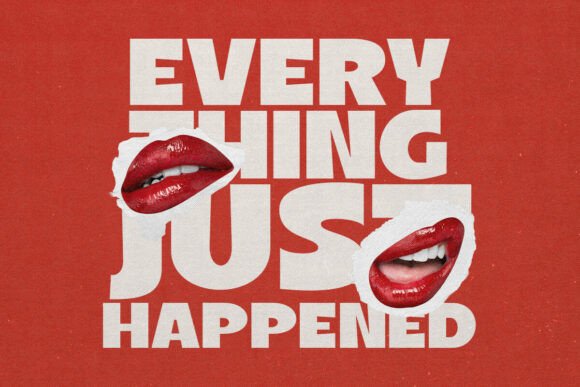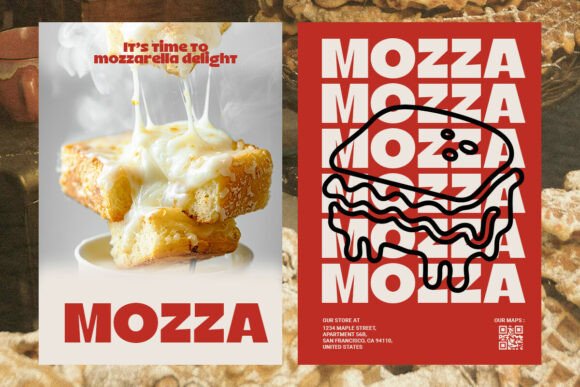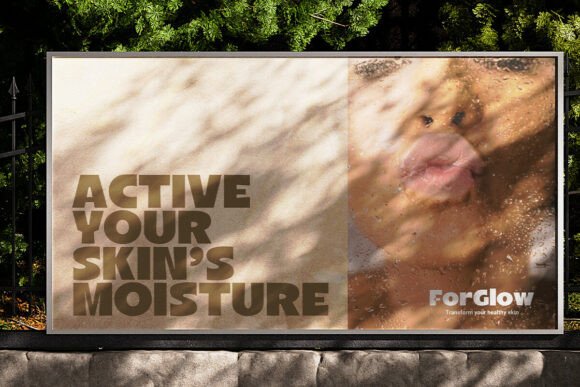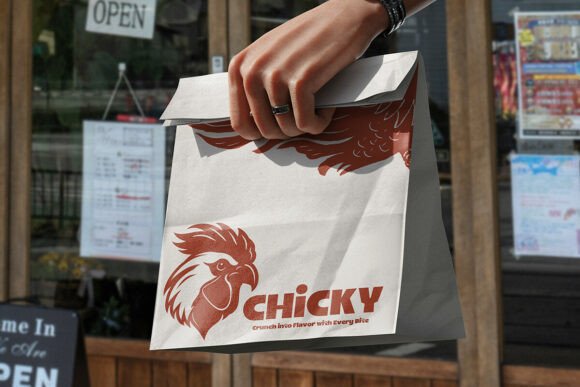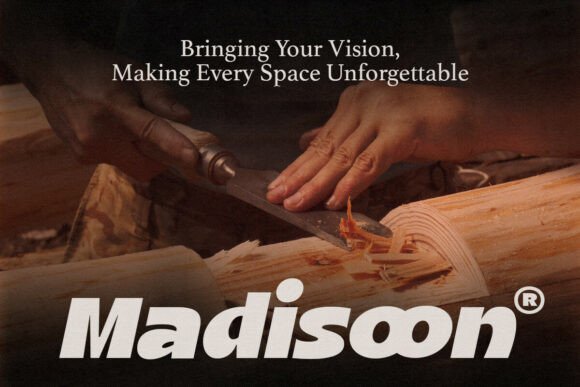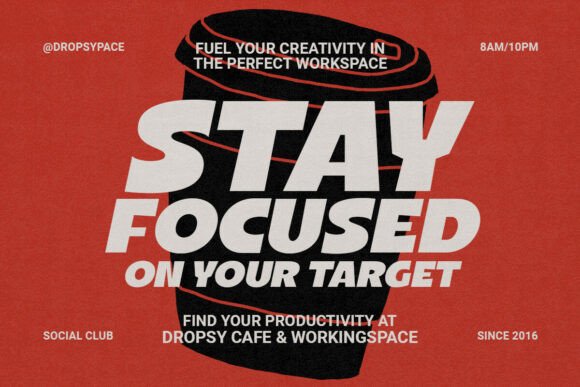
Introduction to Pramat Font
Have you ever been working on a creative project, pouring your heart and soul into it, only to be stumped by the perfect font? The one that will elevate your design from ordinary to extraordinary? For designers, finding that perfect font can be the difference between a mediocre design and a masterpiece.
Enter the Pramat Font, a modern bold sans with a stylish edge that’s sure to make your design stand out. With its high-quality design and versatile usage, this font is a valuable resource for any creative project. Whether you’re working on a poster, logotype, or cafe design, the Pramat Font is the perfect choice to give your design a strong and fancy vibe.
Key Features of Pramat Font
- High-quality design with a transparent background, making it perfect for creative projects that require a clean and minimalist look.
- Features a large character set, including uppercase and lowercase letters, numbers, and punctuation marks, making it suitable for a wide range of creative projects.
- Designed with a modern and elegant style, making it an excellent choice for branding, logos, and other design elements.
Honest Review: Pramat Font
I recently stumbled upon the Pramat Font and I’m excited to share my honest thoughts with you. As a designer, I’m always on the lookout for high-quality fonts that can elevate my creative projects.
The Pramat Font is a beautifully designed sans-serif font with a transparent background, making it perfect for use on both light and dark backgrounds. I love how versatile it is, and I can see it working well in a variety of design contexts, from branding to digital products.
- Transparent background makes it easy to use on any background
- Works well in both print and digital applications
- May not be suitable for projects that require a bold, playful font
- Some users may find the font too minimalist
Overall, I’m impressed with the Pramat Font. It’s a great addition to any designer’s toolkit, and I’m happy to have it as a design resource. If you’re looking for a high-quality font with a transparent background, I’d definitely recommend giving it a try.
Pramat Font
The Pramat Font is a high-quality design resource perfect for creative projects. With its unique style and transparent background, it’s an ideal choice for designers looking to add a touch of elegance to their work.
The Pramat Font is perfect for a variety of creative projects, including:
- Logos and branding
- Graphics and illustrations